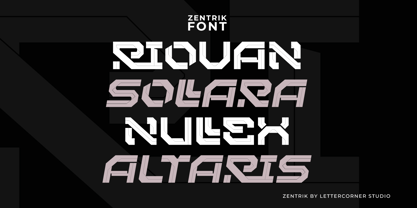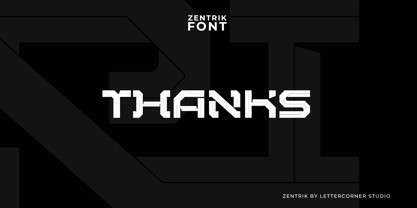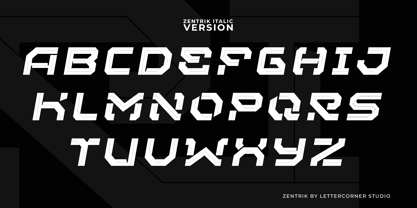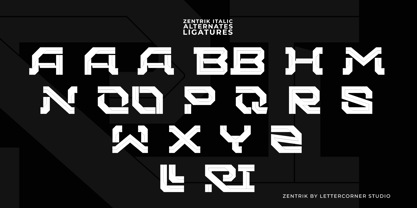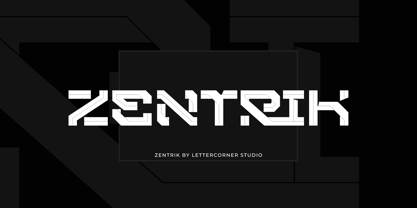
Zentrik
Zentrik — Modern Geometric Display Font
Zentrik is a display font built for clarity and impact. Its letterforms are clean, geometric, and confidently modern — every curve and angle feels intentional, stripped of excess, and engineered for instant recognition. The name itself echoes its design philosophy: centered, focused, and direct, a typeface that gets straight to the point without losing character.
With 258 glyphs including full Latin character support, Zentrik is designed for large scales — headlines, covers, branding, and any situation where typography needs to speak before the words are even read. Its sharp, structured forms give it a sense of precision and energy, making it feel equally at home in tech branding, editorial layouts, and bold statement design.